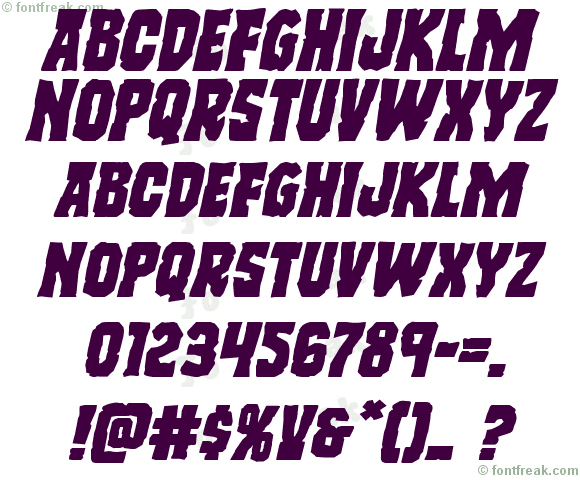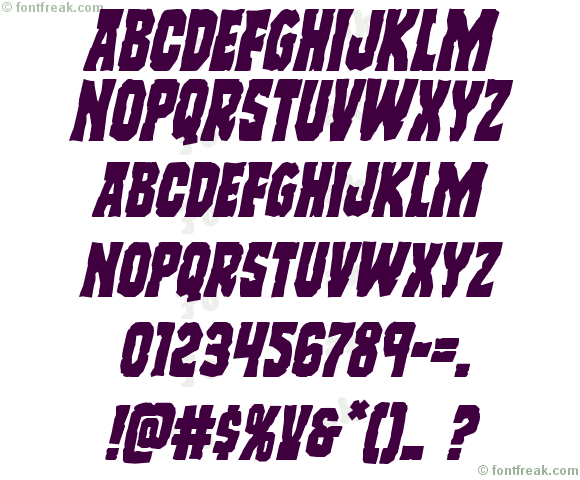
Freakfinder Italic
Freakfinder Italic, designed by Daniel Zadorozny, is a striking display font that falls under the decorative category. Released in 2014, this typeface boasts a unique visual style characterized by its expanded, staggered, and slightly rotated letterforms. The font features a bold stroke weight that commands attention while maintaining a playful aesthetic, making it an excellent choice for various creative projects.
The contrast in Freakfinder Italic is notable, with its thick, heavy lines complemented by sharp angles and distinctive shapes. The spacing is tight yet purposeful, allowing for a cohesive look that enhances readability without sacrificing style. This blend of characteristics creates a dynamic visual impact that is both modern and edgy.
Freakfinder Italic is particularly well-suited for eye-catching applications. Graphic designers can use it to create memorable wedding invitations that stand out, or to design movie posters that draw viewers in with a sense of excitement. Its unique flair also makes it ideal for restaurant menus, helping to convey a vibrant brand personality. Additionally, content creators looking to add a bold touch to their digital graphics will find this font an appealing choice for social media posts and promotional materials.
The target audience for Freakfinder Italic includes graphic designers, small business owners, and content creators who crave a font that combines creativity with functionality. Whether for print or digital media, this font offers versatility and visual appeal.
What truly sets the Freakfinder Italic font apart is its ability to make a statement without overwhelming the viewer. It effortlessly combines boldness with a playful charm, making it a must-have for anyone looking to inject personality into their designs. For those interested, a Freakfinder Italic font free download is available, allowing you to explore its unique style in your own projects.